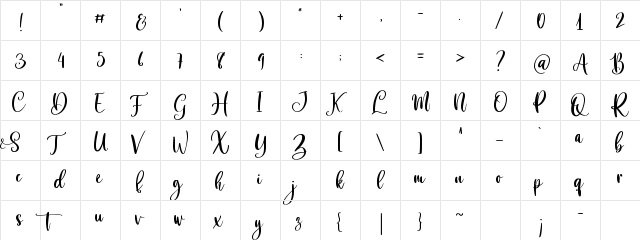
Sibertha Regular
| Designer | Abo Daniel 2020 |
Design Context for Sibertha Typeface
Sibertha takes a measured approach to typography — its balanced proportions and neutral character make it a reliable workhorse for both digital and print work.